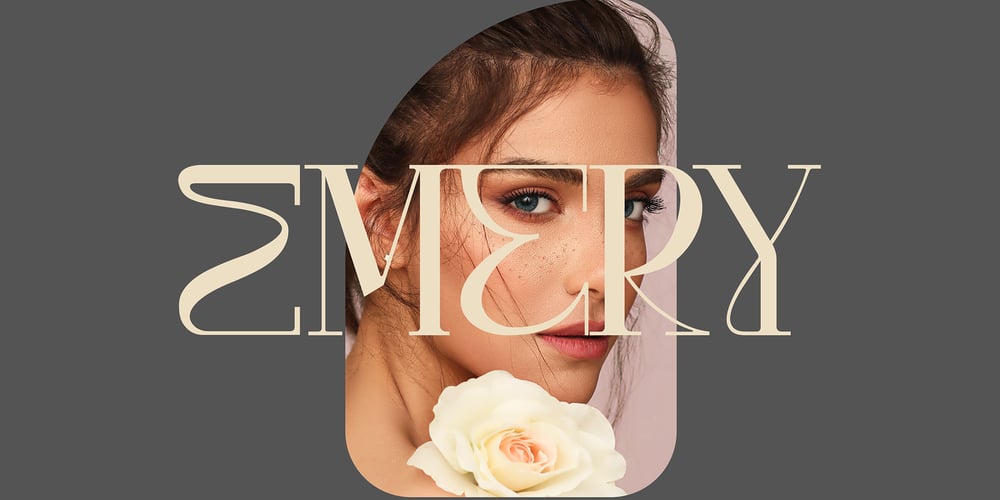
Emery
Emery font
Emery Font Family was designed by Peter Olexa and published by Deeezy. Emery contains 1 styles and family package options. Trendy, unique & modern style slab serif font for your fancy projects. Elegant, funny and artitsic style on Emery font will be great for any branding project. Enjoy ๐Ÿ™‚